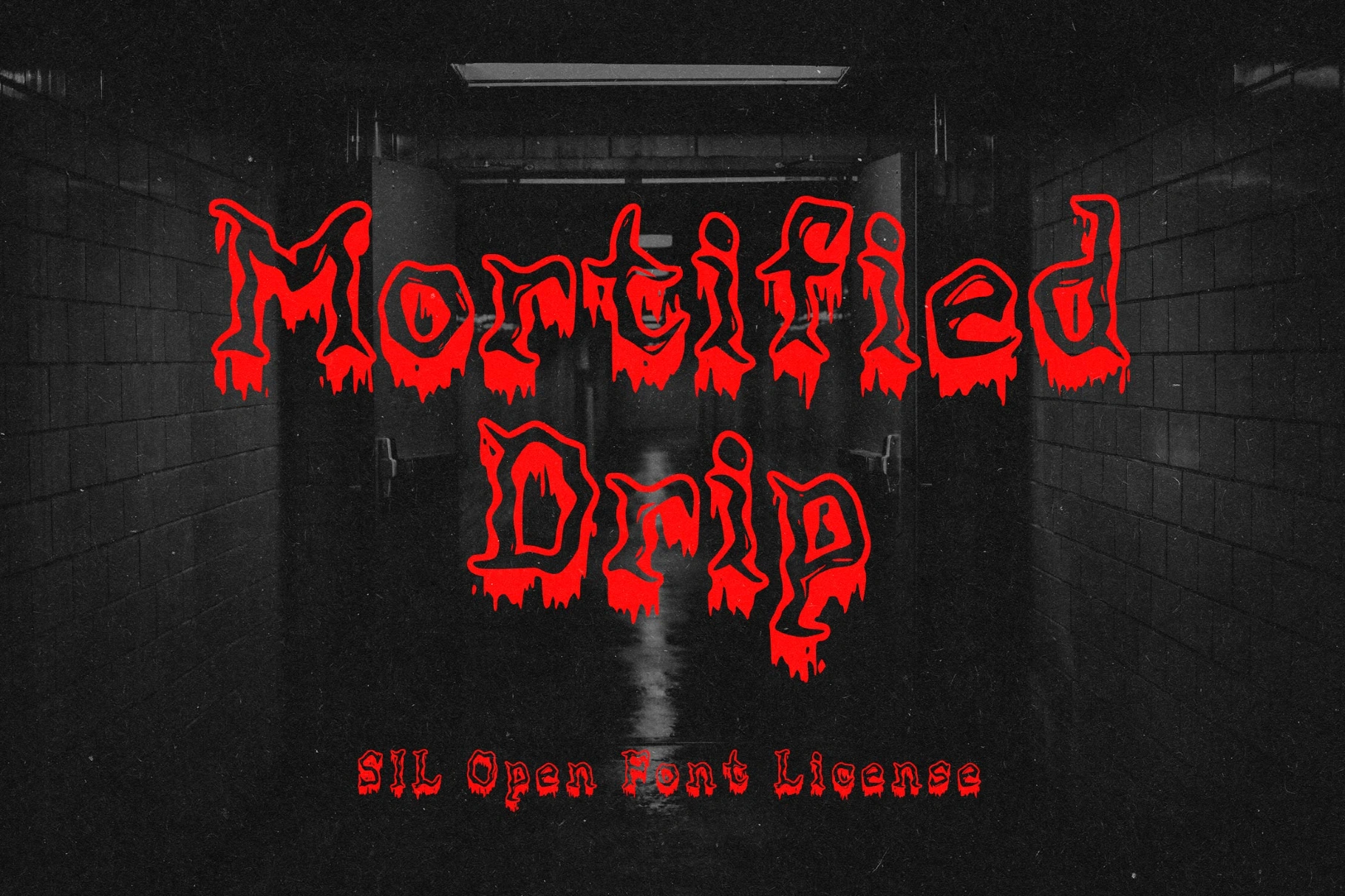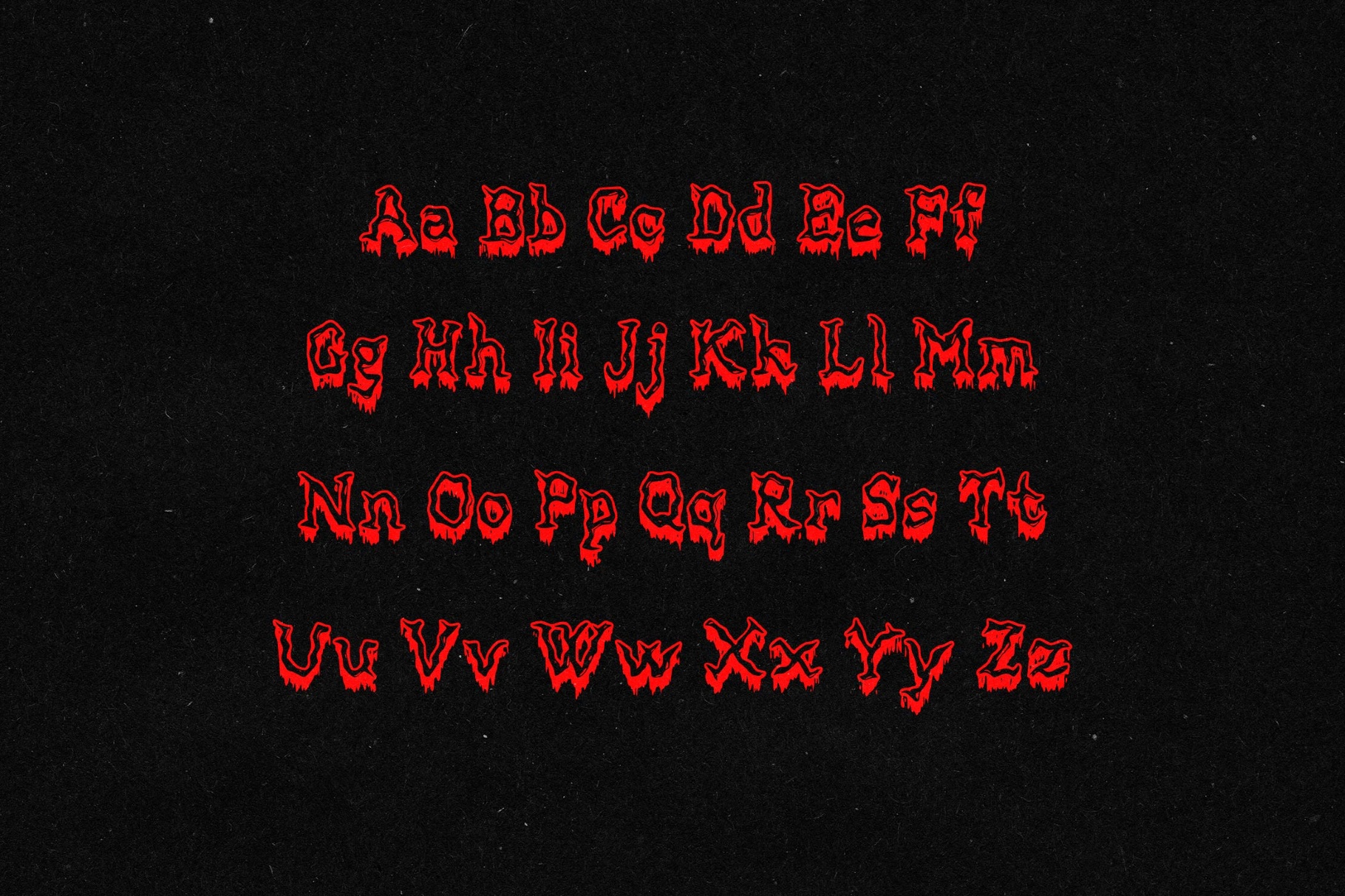
Mortified Drip Font
Mortified Drip font makes a text unstable and slowly breaking down, with thick strokes pulling into sagging drips. The forms stretch and distort under their own weight, creating an uneasy flow. The creepy hapes push the text into a more disturbing direction, and there’s a discomfort in how the letters hang and deform. The font works well in horror visuals, Halloween graphics, game titles, underground posters, and branding that leans into decay.